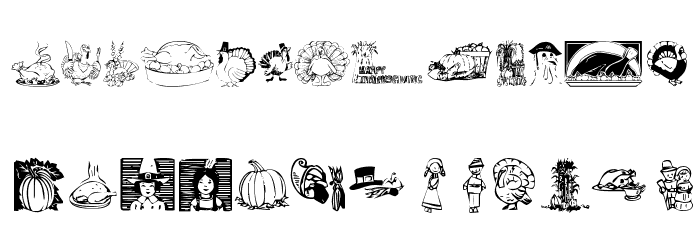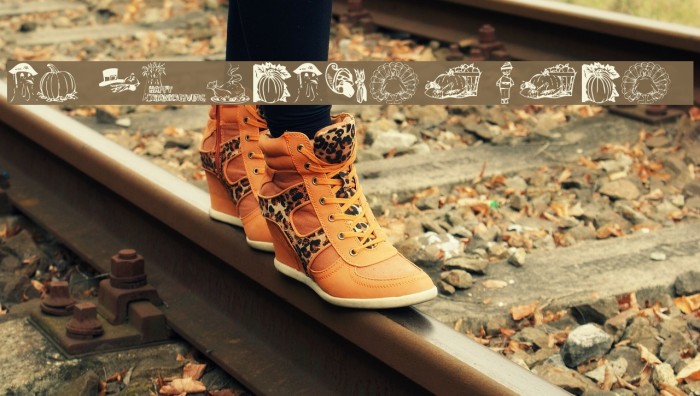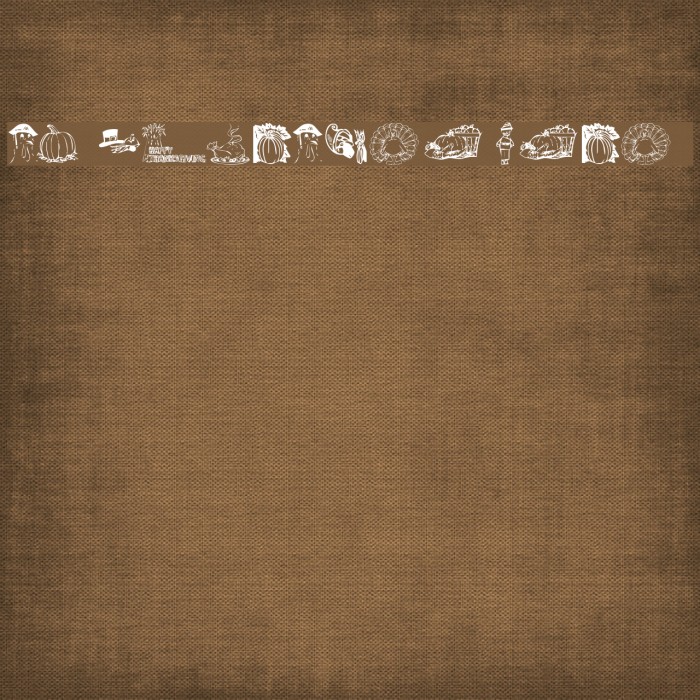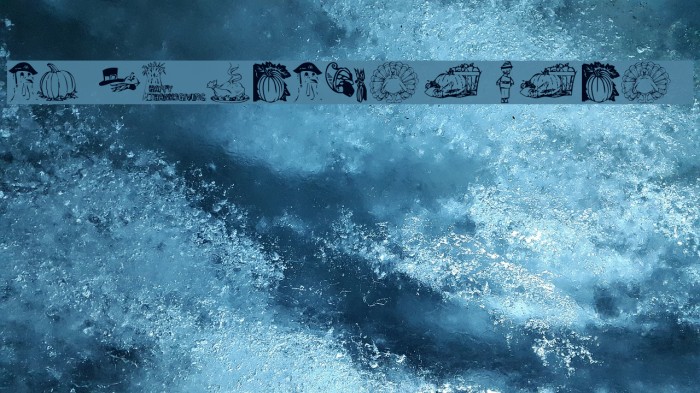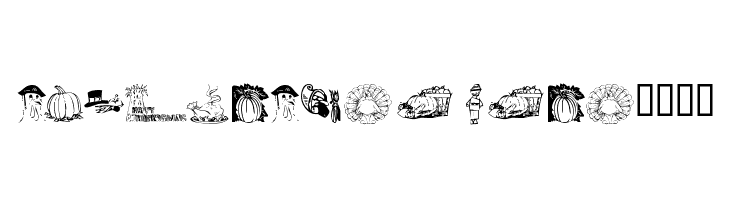
KR Thanksgiving 2002 Font
This is a decorative font featuring a variety of Thanksgiving-themed illustrations. Each character is represented by a unique image, including turkeys, pumpkins, Pilgrims, and other festive elements. The style is playful and detailed, capturing the essence of Thanksgiving celebrations. The images are black and white, providing a classic and timeless look. This font is ideal for projects that require a festive and thematic touch, particularly those related to Thanksgiving events or autumnal themes.
A decorative font with Thanksgiving-themed illustrations.
- Proposed Projects: Ideal for Thanksgiving event invitations, holiday cards, seasonal decorations, and educational materials about Thanksgiving.
- Use Case: Logos, Headlines, Decorative elements